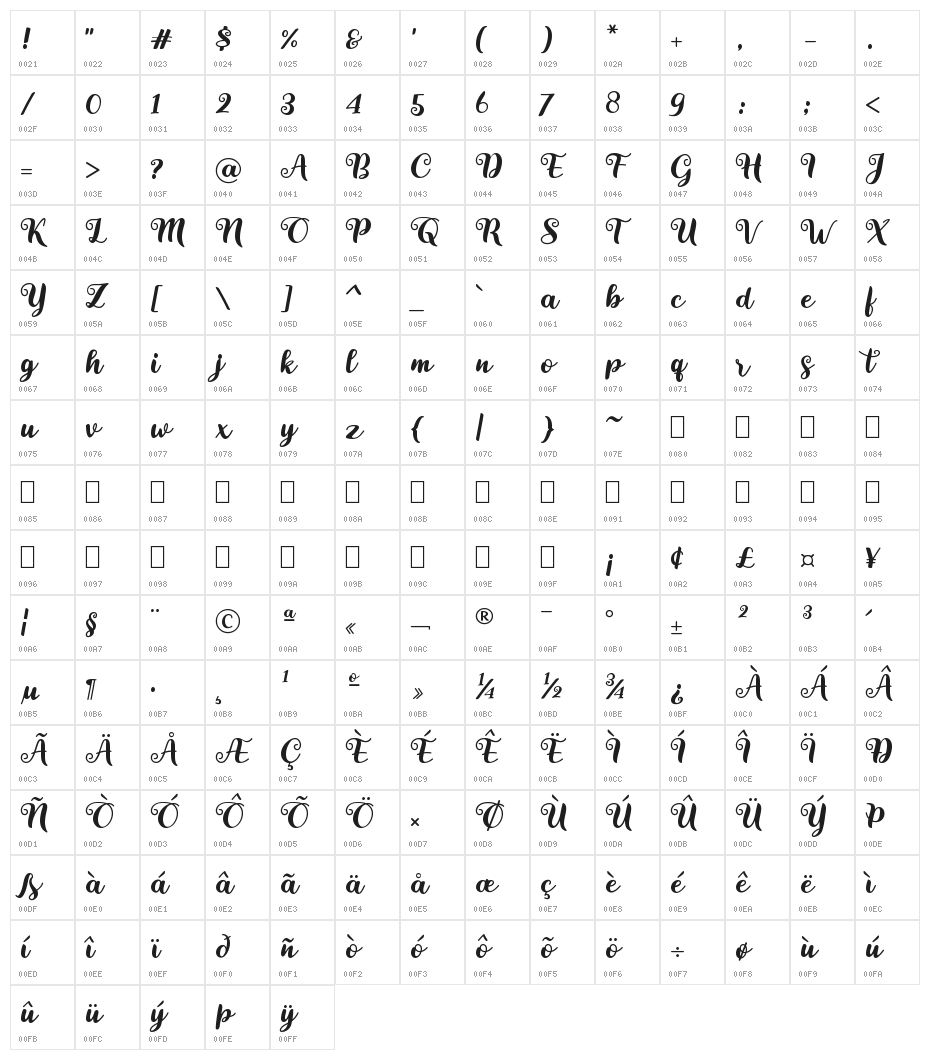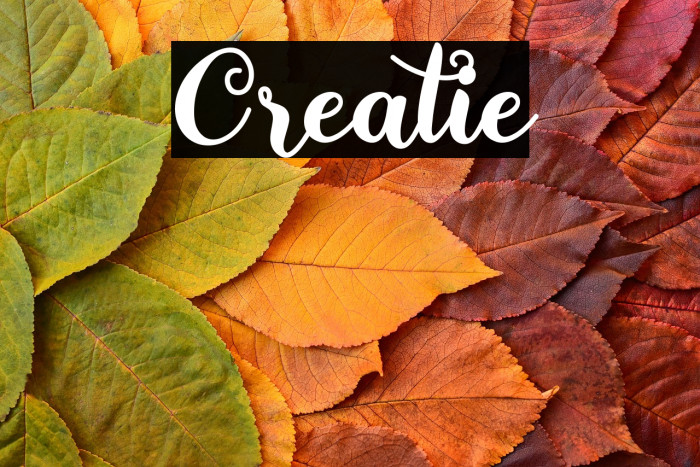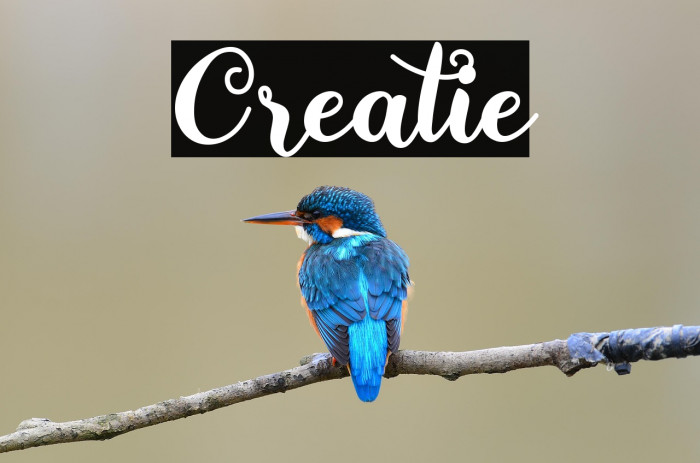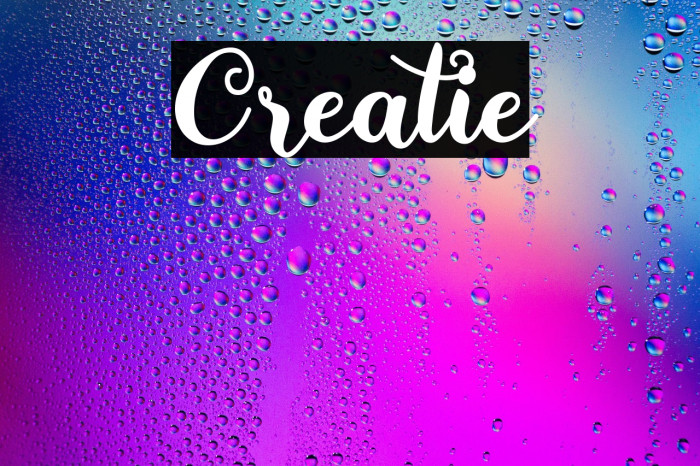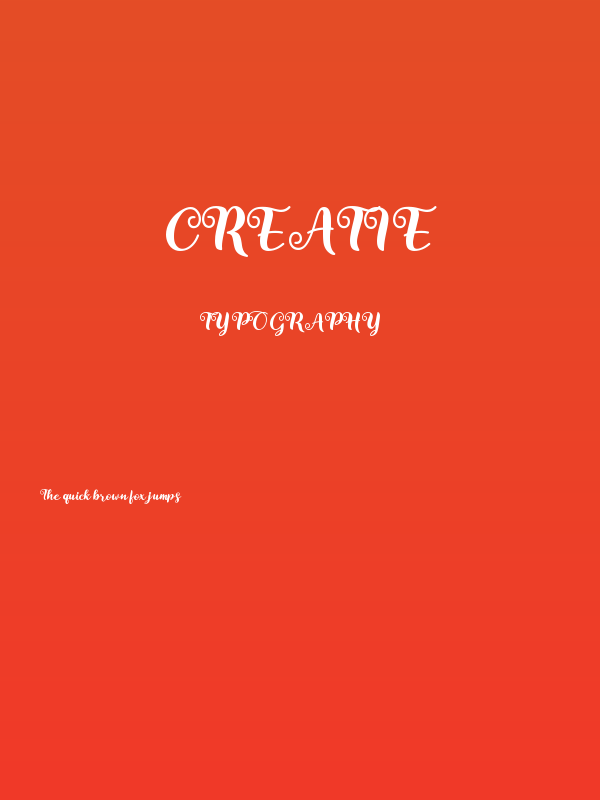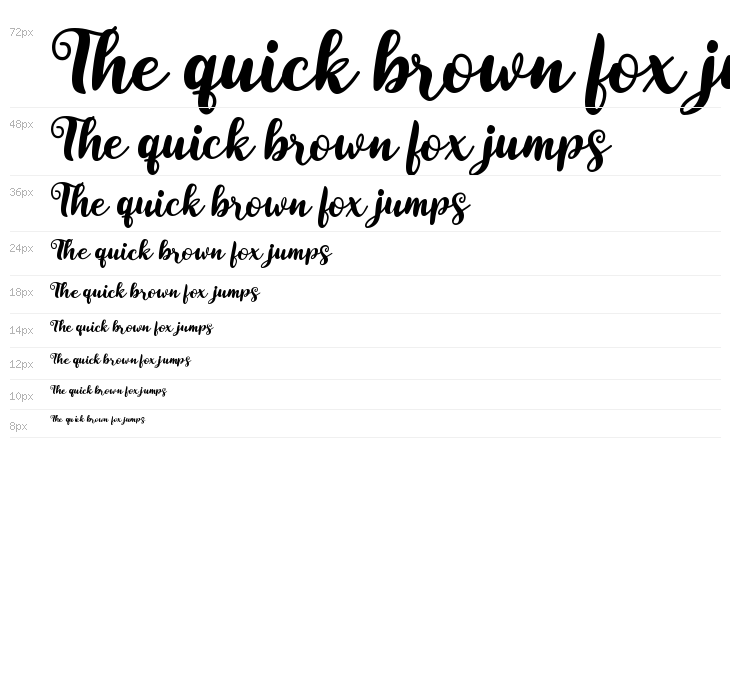
Creatie Font
Creatie Description
This font features a decorative and elegant script style, characterized by its flowing, cursive letterforms. The uppercase letters are ornate, with intricate loops and swirls that add a touch of sophistication. The lowercase letters maintain a consistent flow, enhancing readability while retaining an artistic flair. Numbers and special characters are designed to complement the overall style, with similar embellishments and curves. The font's bold strokes and high contrast between thick and thin lines make it stand out, suitable for creative and expressive design projects.
Overall StyleDecorative
Use CaseLogos, Invitations, Decorative text
Proposed ProjectsIdeal for wedding invitations, greeting cards, branding, and logo design.